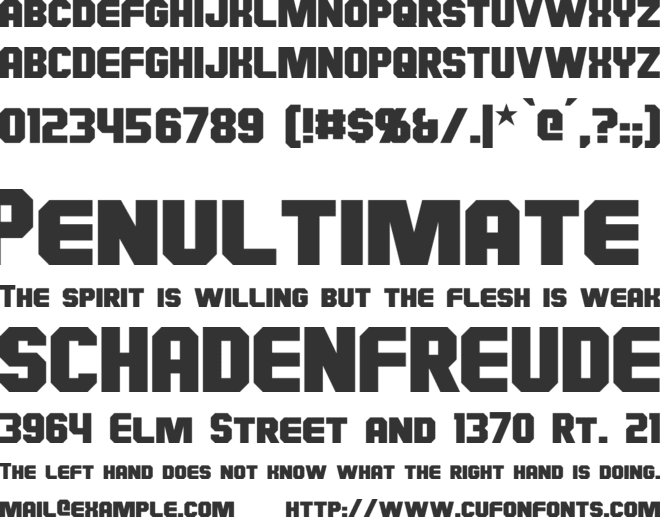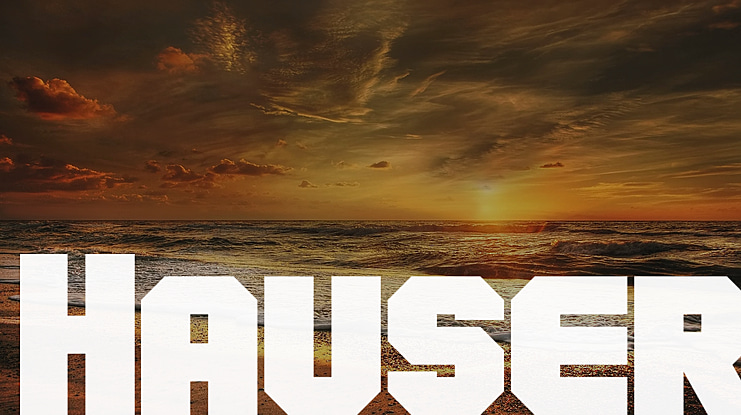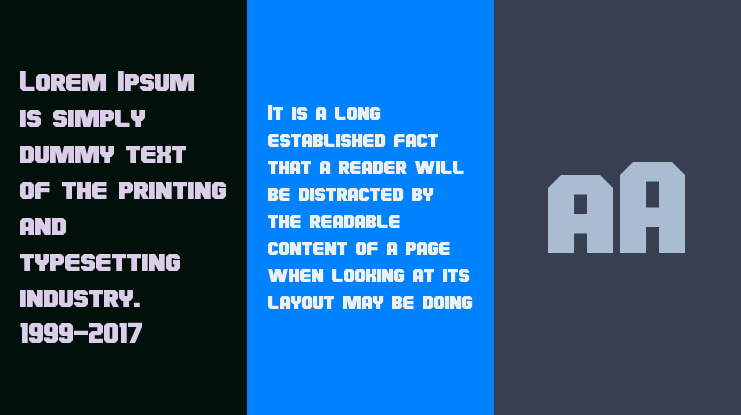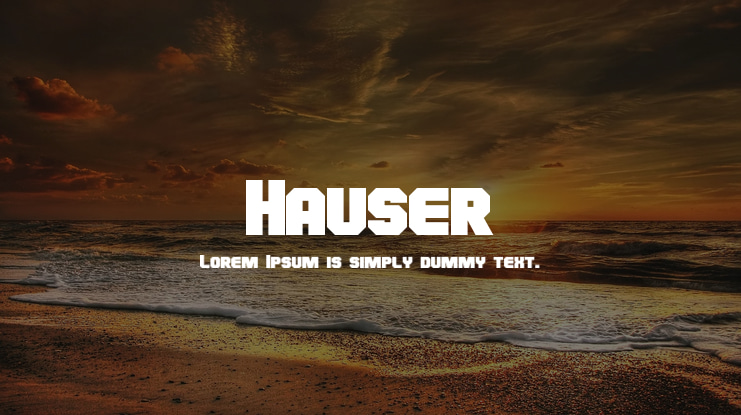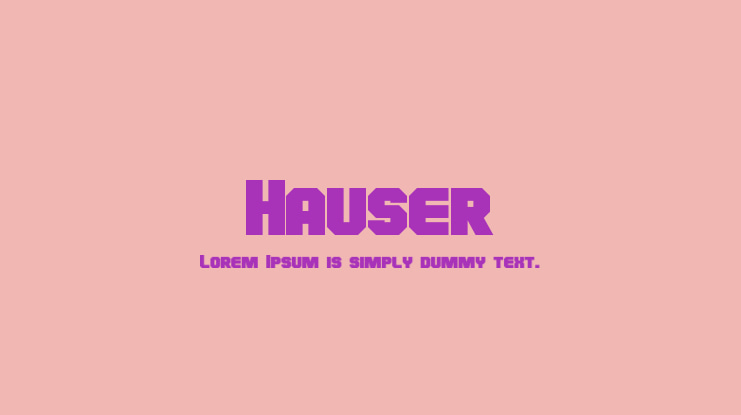
Hauser Font Family
Neale Davidson
Hauser is a simple, angular typeface with a military feel, heavily inspired by the title logo of Hasbro's classic GI Joe franchise. The font includes full alphabet, extended punctuation, and Euro. Includes regular, italic, condensed, and condensed-italic versions.
Version 3.00 - 29 March 2016 * Added polish characters * Cleaned up and reworked all glyphs * Added bold to both regular and condensed weights * Comic-accurized several letters * Military-accurized lowercase into 'short-caps'